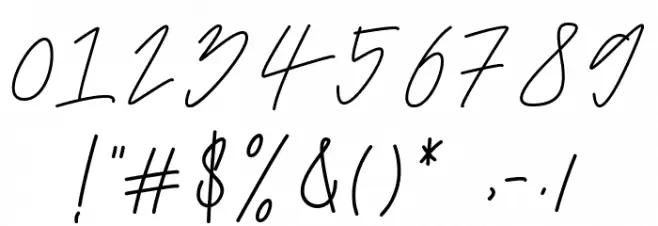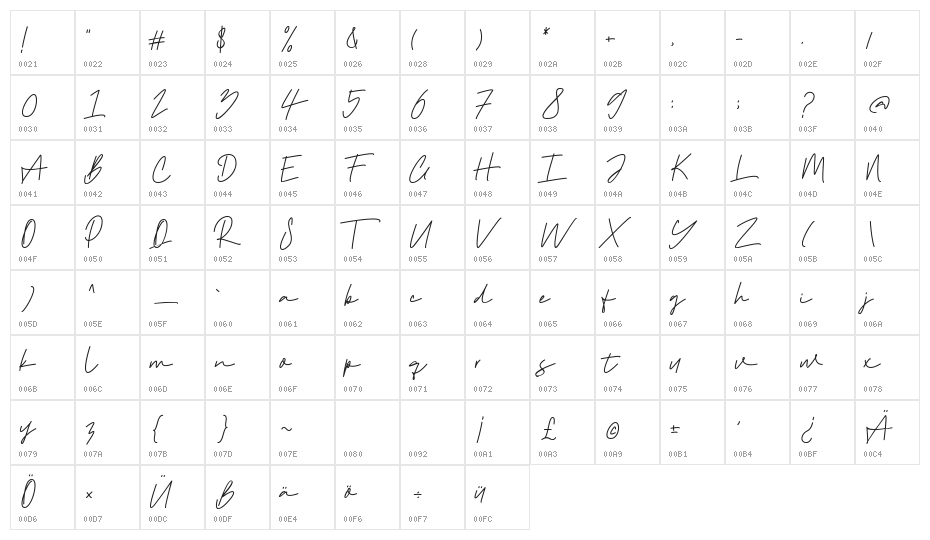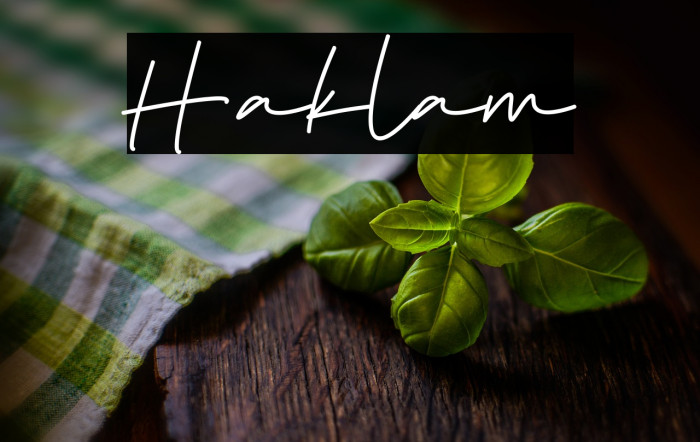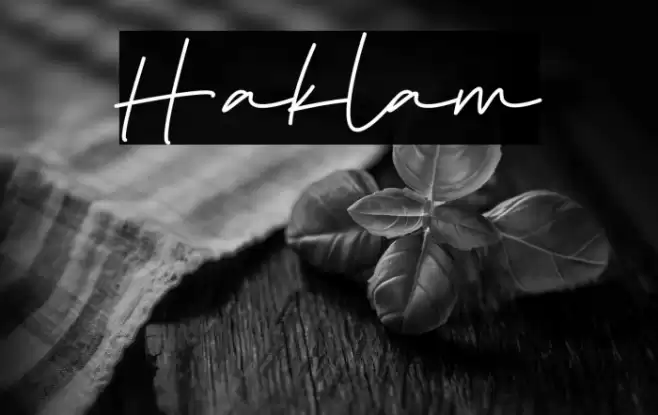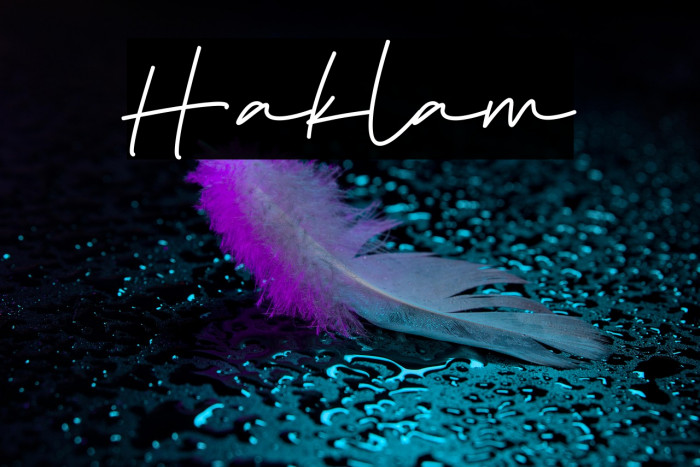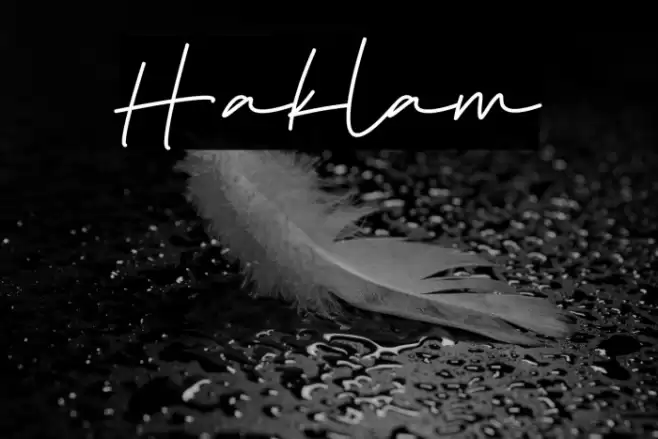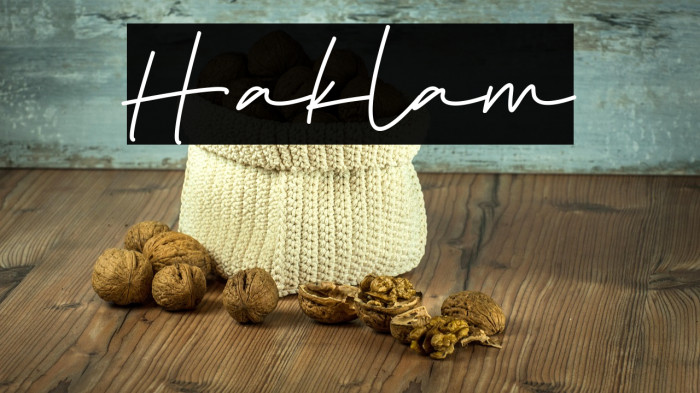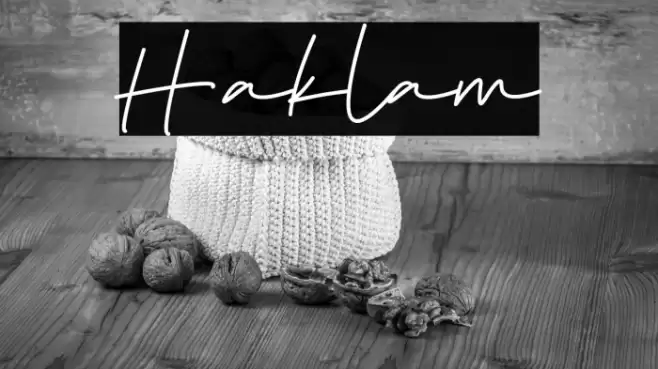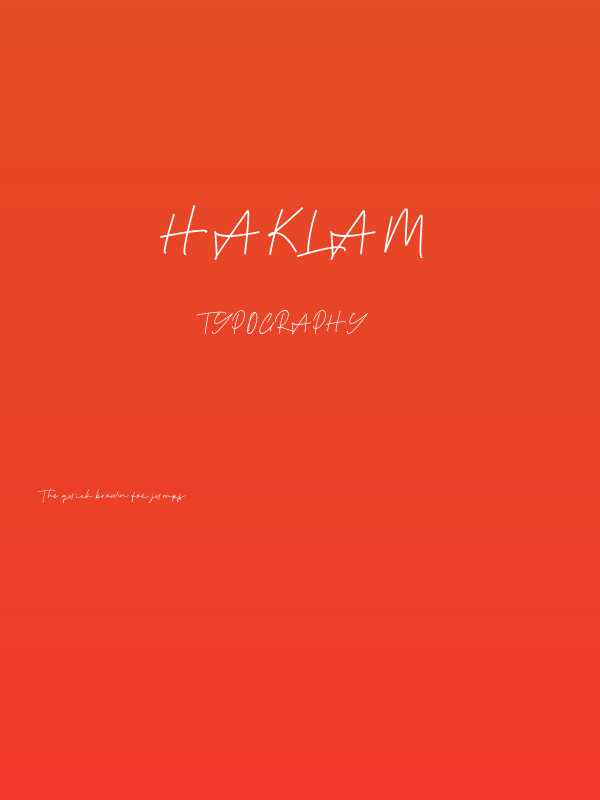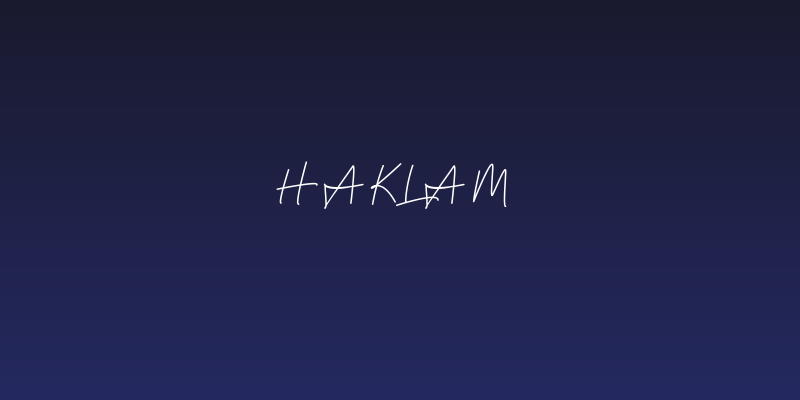
Haklam Font
Haklam Description
This font features a fluid and dynamic handwritten style, characterized by its elegant and flowing script. The letters are connected in a natural and seamless manner, giving it a personal and authentic feel. The uppercase letters maintain a consistent height, while the lowercase letters exhibit a slight variation in size, adding to the organic appearance. The numerals and special characters are crafted with the same attention to detail, ensuring a cohesive look across all elements. The strokes are smooth and slightly varied in thickness, contributing to a balanced and visually appealing design. This font is ideal for projects that require a touch of sophistication and individuality.